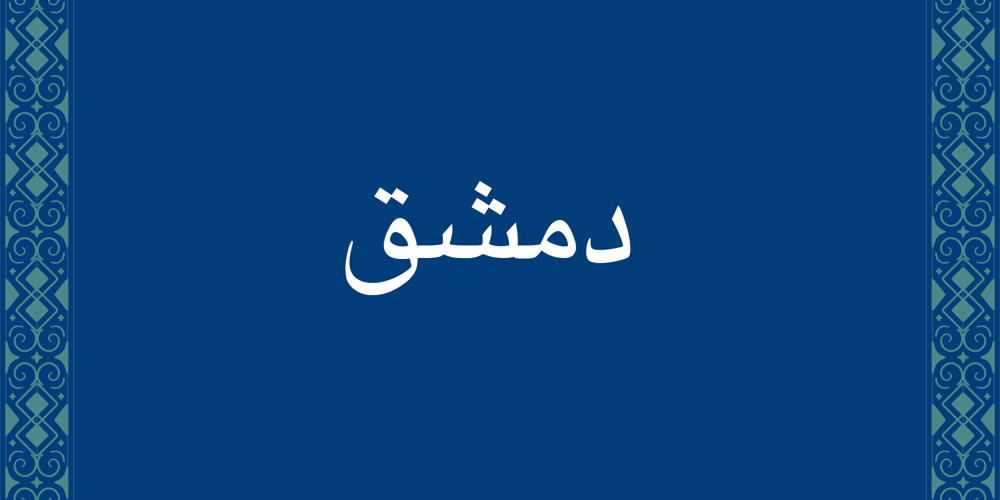
Damascus Font Family was designed by Diwan Font Team and published by Diwan Software. Damascus contains 3 styles and family package options. Damascus is a contemporary Arabic typeface designed for clarity, simplicity, and versatility in body text. Modeled after the clean and modern aesthetics of Helvetica, this font brings the same level of readability and elegance to Arabic script. It comes in regular, light, and bold weights.